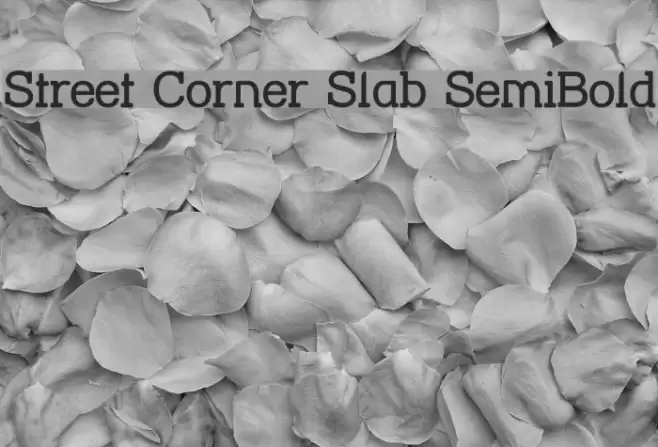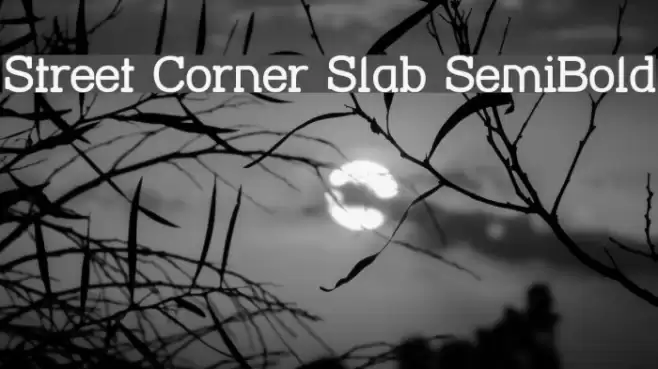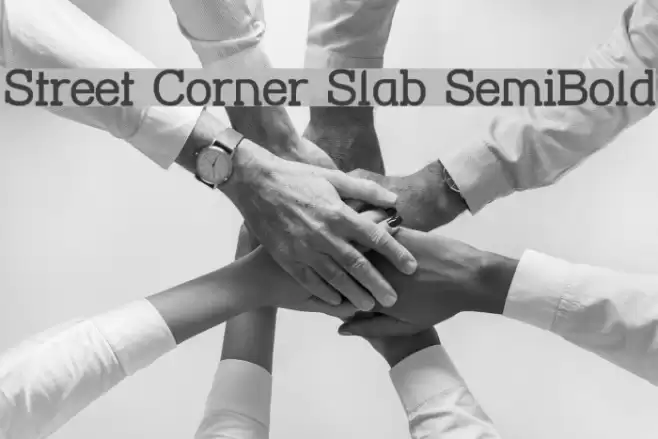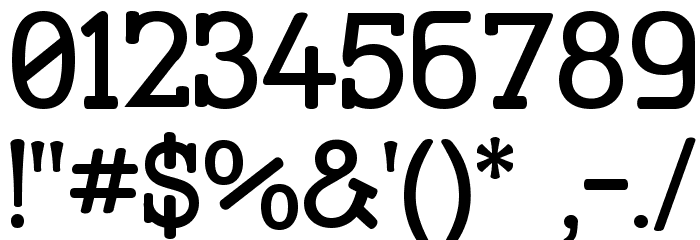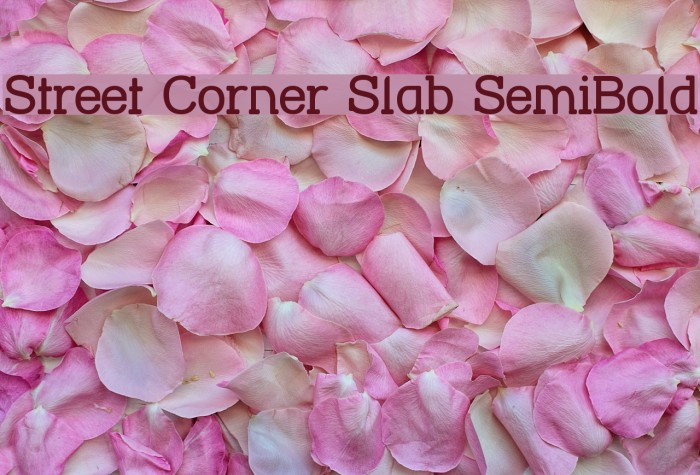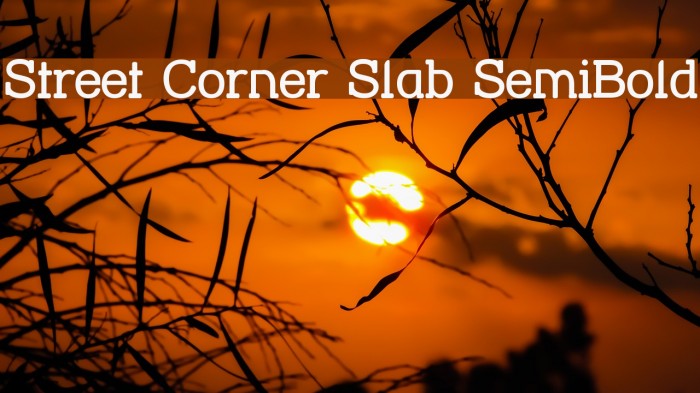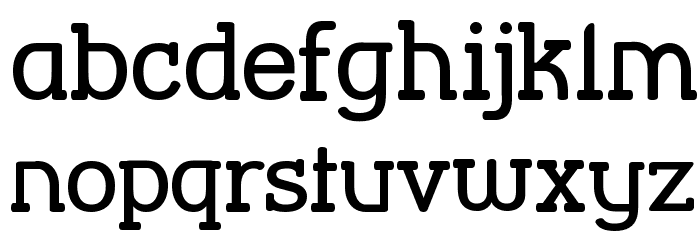
Street Corner Slab SemiBold Font
Street Corner Slab SemiBold Description
This font features a robust and sturdy slab serif design, characterized by thick, block-like serifs that give it a strong and confident appearance. The letters are well-defined with a consistent stroke width, providing a sense of stability and reliability. The uppercase and lowercase characters maintain a uniform style, with rounded edges that soften the overall look. The numerals are clear and legible, making them suitable for various applications. The special characters are distinct and harmonize well with the rest of the typeface, ensuring versatility in design projects.
A bold slab serif font with strong, block-like serifs and rounded edges from Serif fonts.
- Proposed Projects: Ideal for branding, signage, posters, and editorial design where a bold and reliable typeface is needed.
- Use Case: Headlines, Logos, Signage